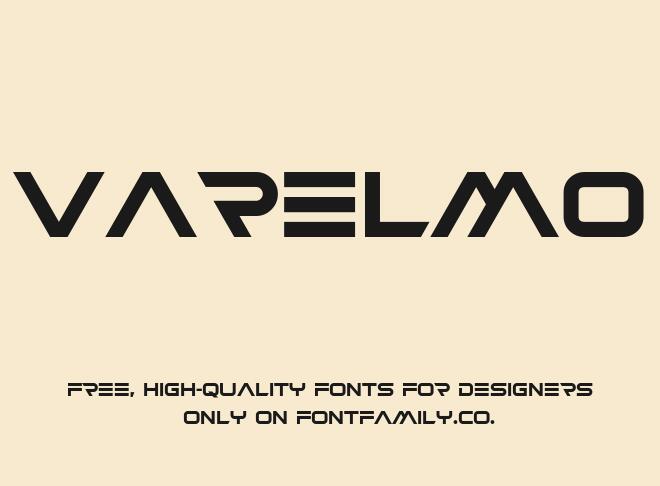
Varelmo Font
Varelmo Font, designed by Creative Foundry, is a unique modern typeface with a touch of elegance and decorative flair. Released in 2020, this font stands out with its clean lines and balanced letterforms, making it an excellent choice for a wide range of design projects. Varelmo Font can be compared to the likes of 'Helvetica Neue' for its clarity, but with a more decorative edge. Its modernity makes it suitable for contemporary design work, including logos, headlines, and branding. The elegant and decorative aspects of Varelmo Font give it a versatility that allows it to be used in more creative and artistic designs as well. Free for personal use, Varelmo Font is a go-to choice for designers seeking to add a touch of modern elegance to their projects.